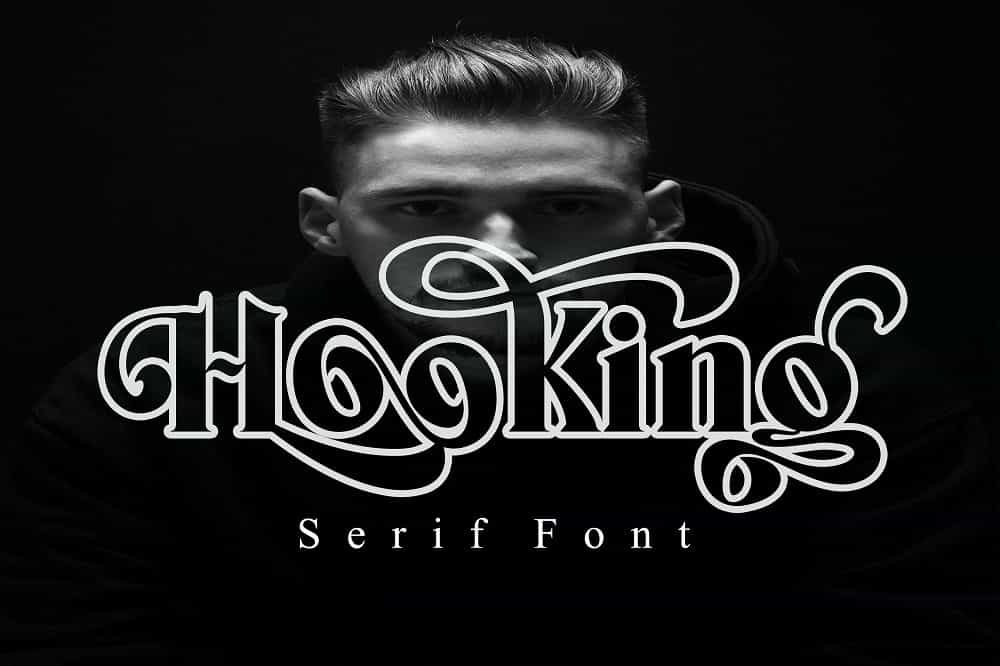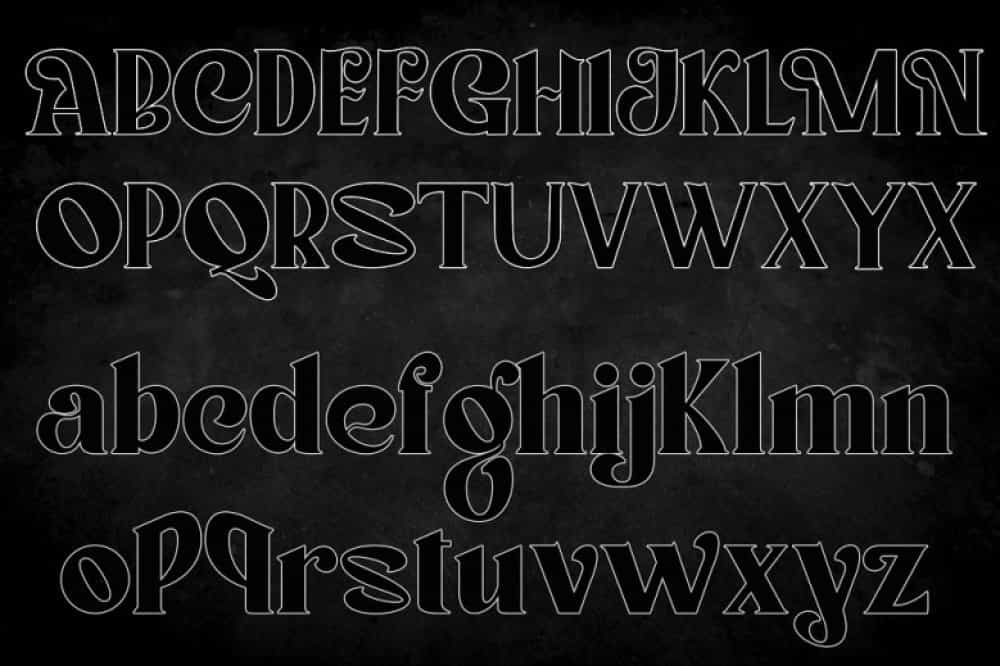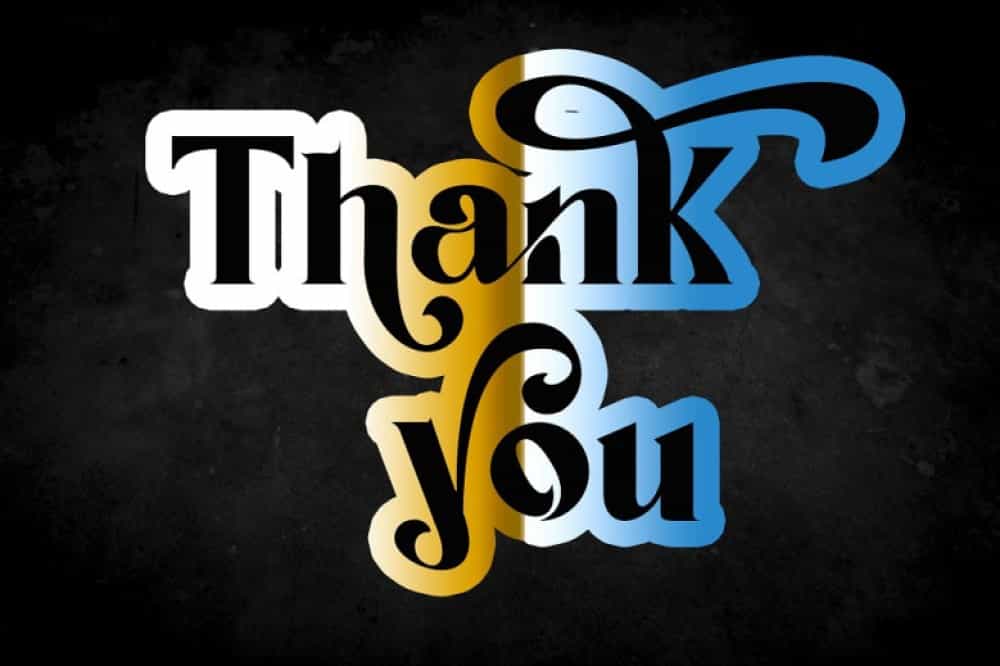
Hooking is a classic elegant and glorious style serif font that has the feature of connecting letters and many variations to make it looks nice. New elegant serif font that you can use to make your designs look more luxurious and classy. This font is very much adaptable and can be used in both large and small scales.